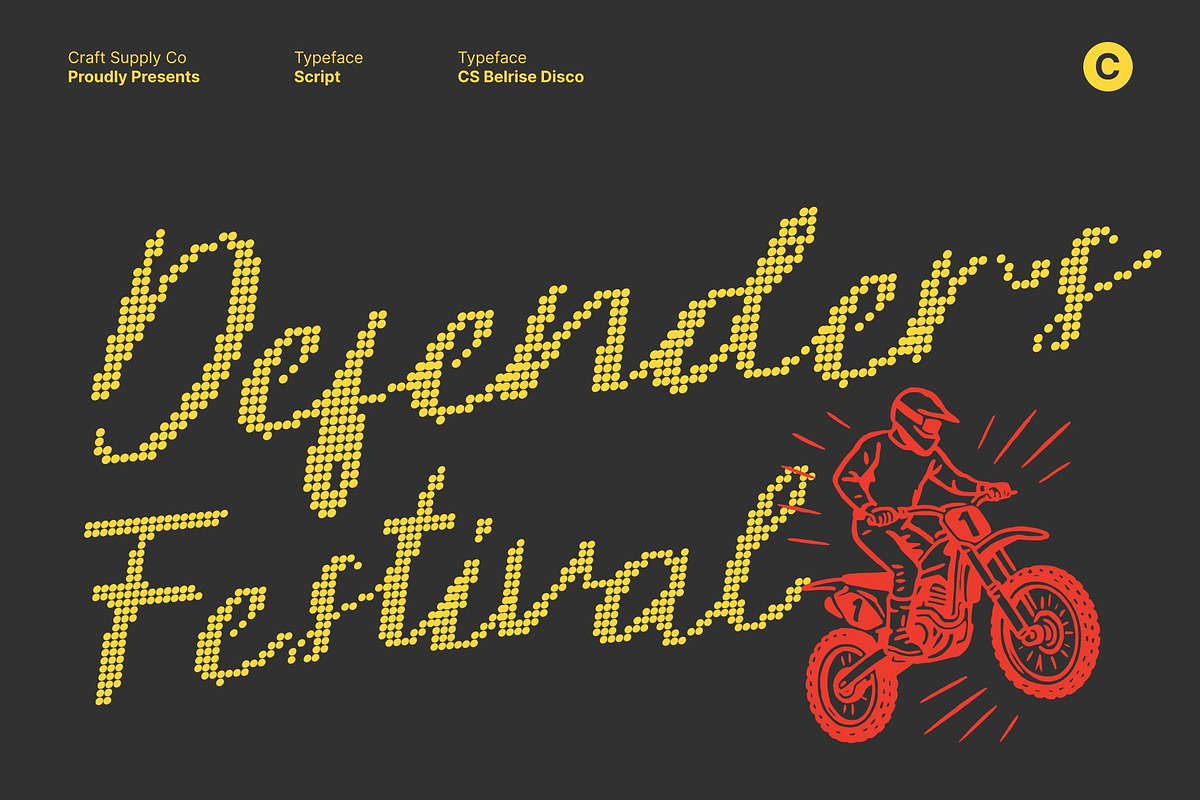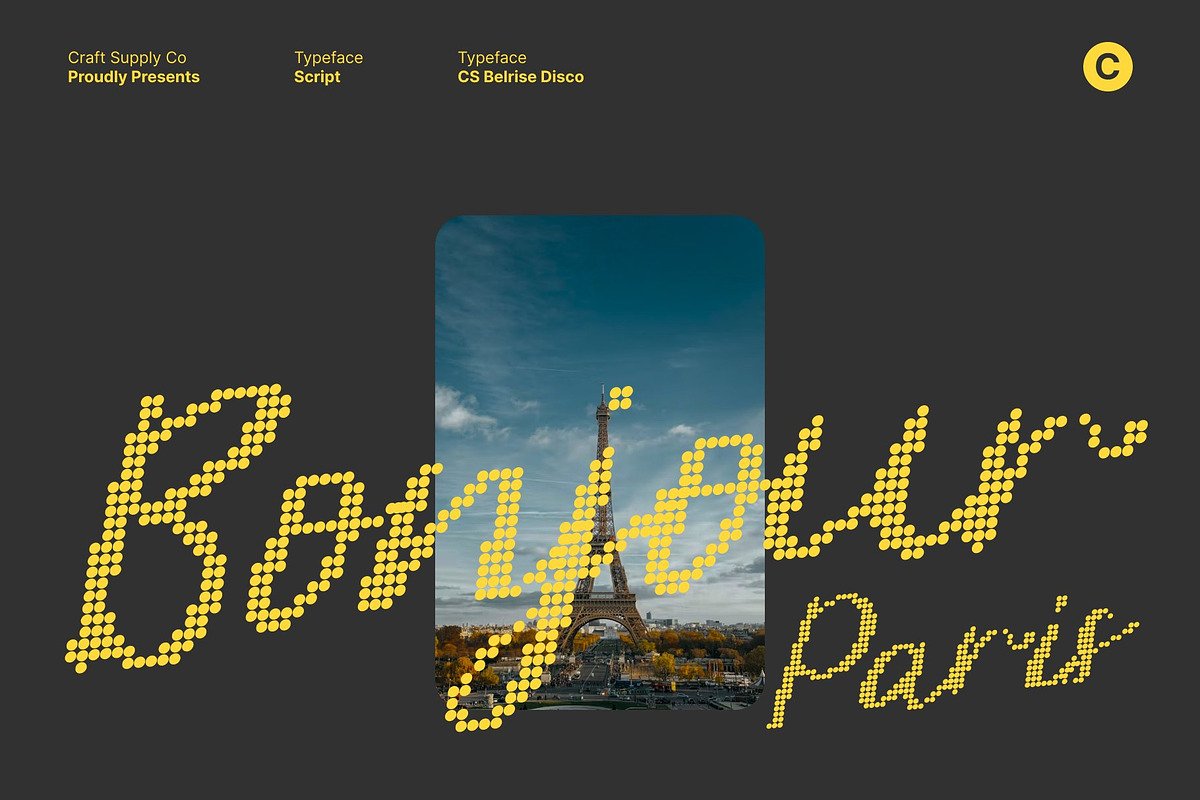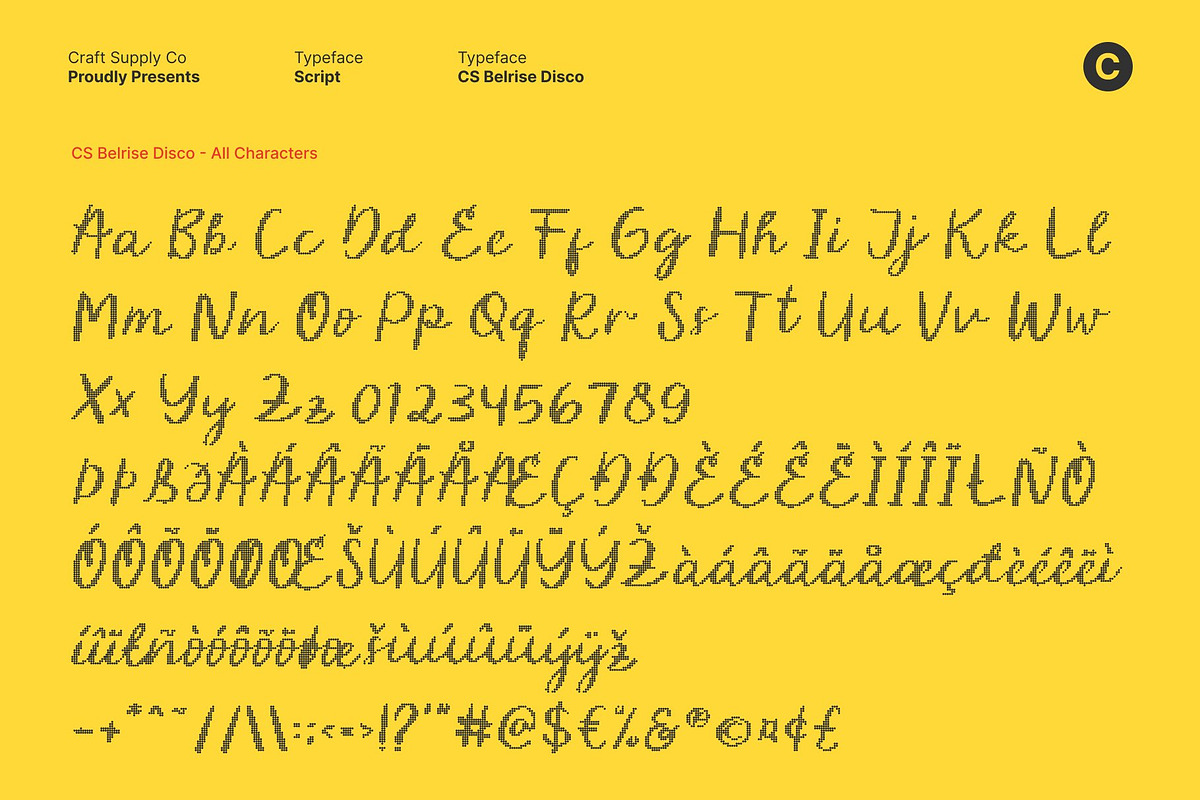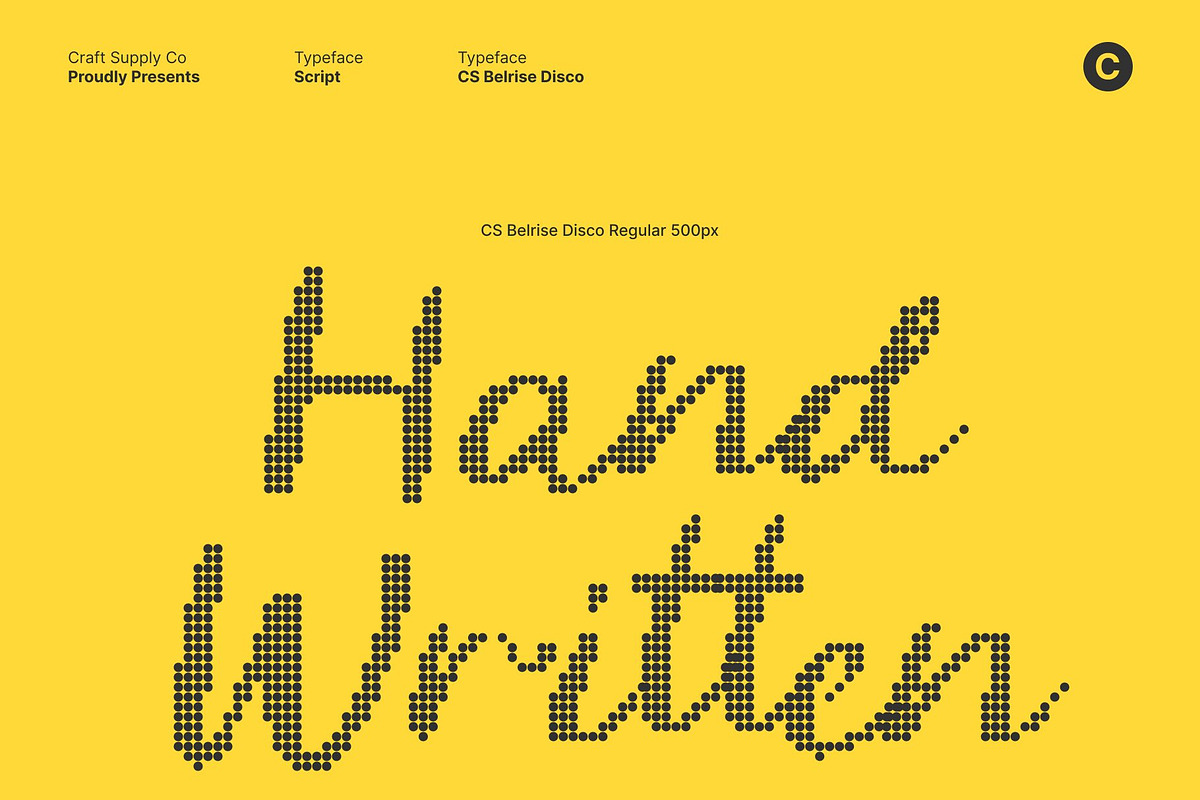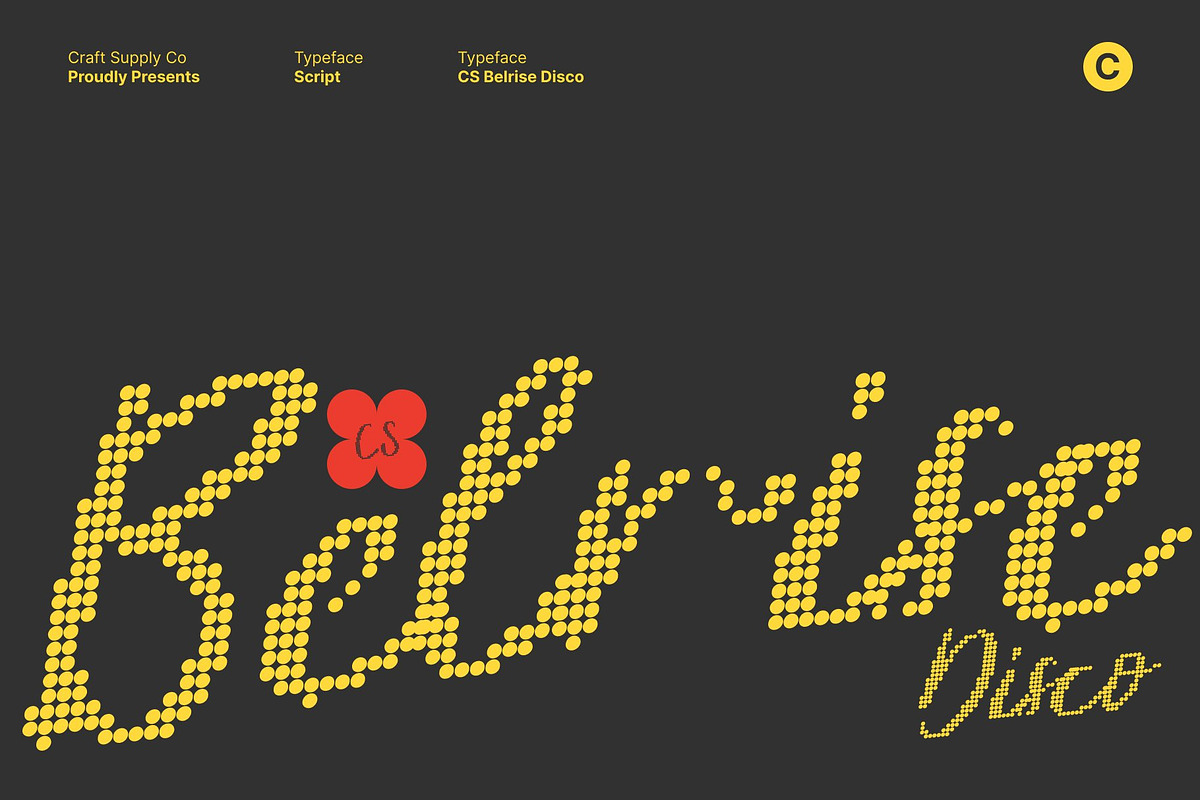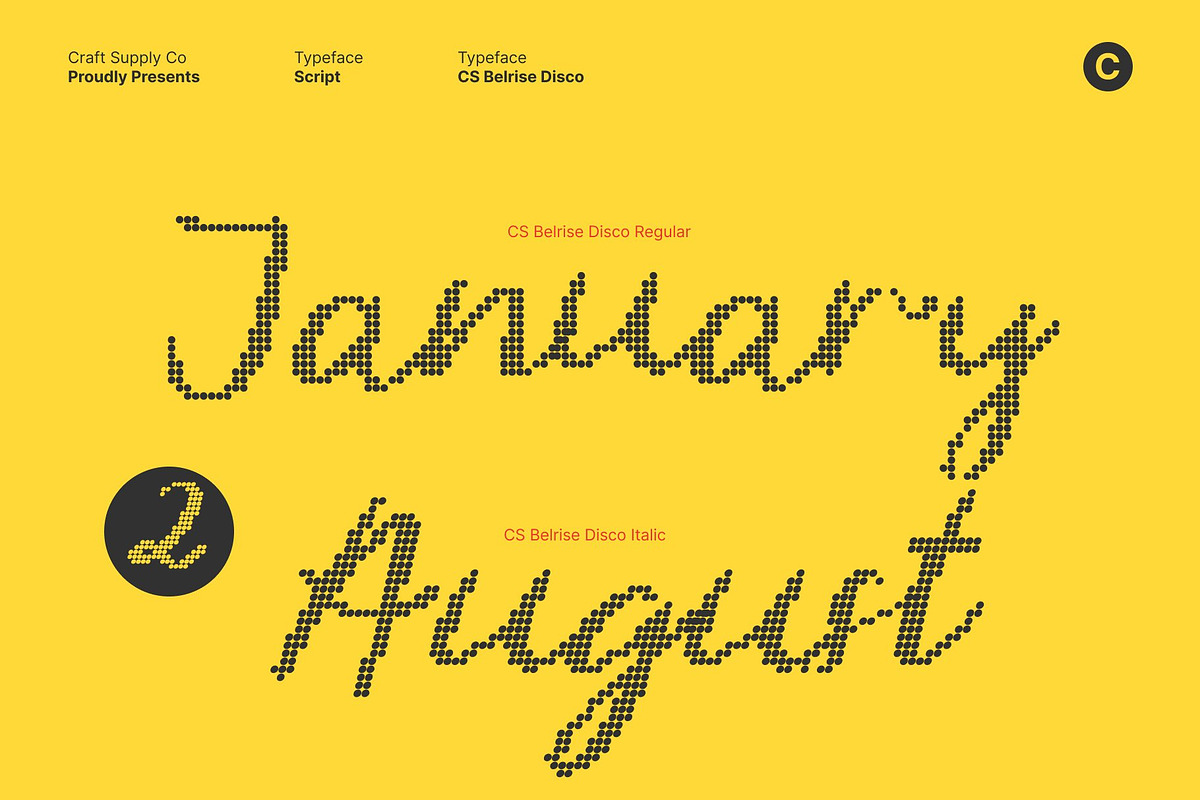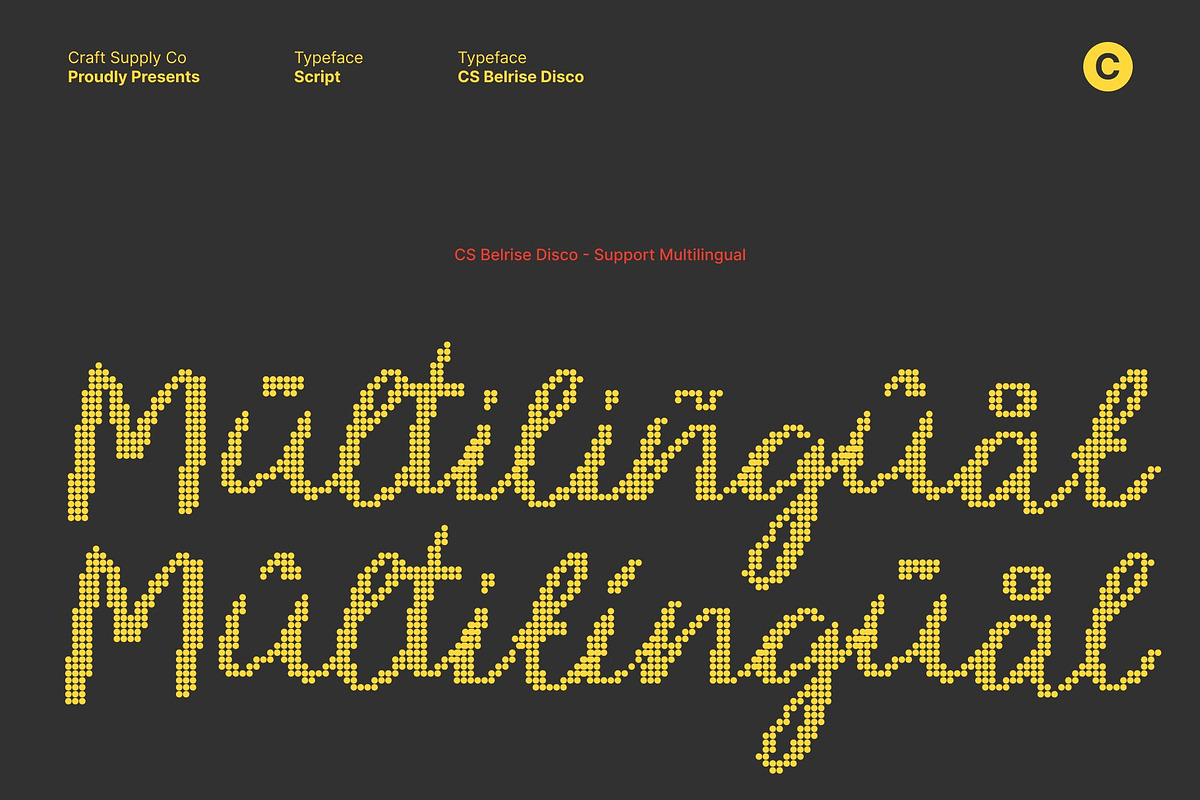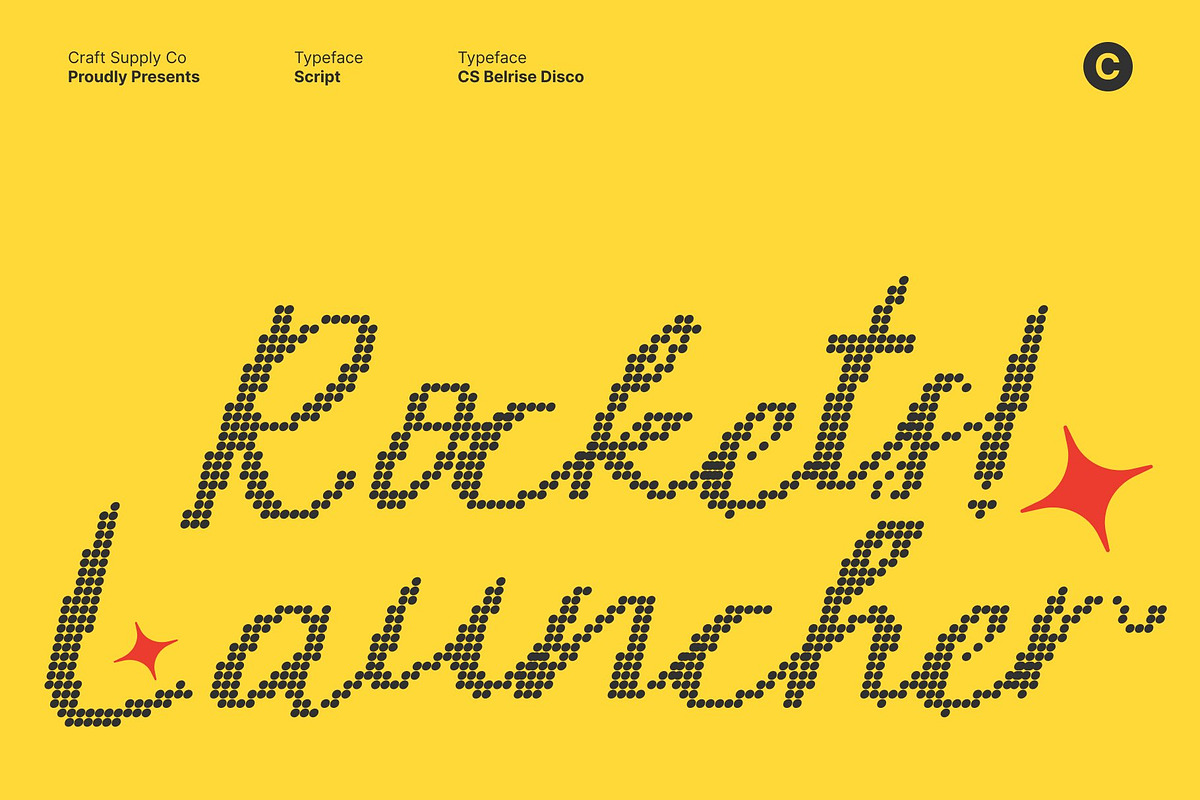
CS Belrise Disco
CS Belrise Disco – Beauty Handwriting Script with Mediterranean Disco Grace
Fluid Strokes with Stylish Handwritten Disco Beauty This is a beauty handwriting script font crafted with soft, fluid strokes and graceful movement. Each letter flows naturally with a gentle rhythm, capturing the warmth of handcrafted writing while embracing a light disco-inspired elegance. The result is a script that feels expressive, stylish, and effortlessly charming full of motion and personality.
Mediterranean Elegance with Retro Disco Romance Inspired by the sunlit charm of Mediterranean handwriting and the romantic glamour of the 70s to early 80s, this font carries an airy, graceful character with a nostalgic glow. Its flowing curves and relaxed movement evoke seaside romance, soft lights, and joyful evenings, creating a look that feels timeless, cheerful, and beautifully refined.
Perfect for Branding and Elegant Packaging This font shines in branding projects that seek a luxurious yet approachable feel. Its elegant handwritten strokes add sophistication and warmth to logos, product labels, and premium packaging. Ideal for beauty, fashion, artisan goods, and lifestyle brands, this font communicates authenticity, elegance, and subtle retro charm.
Ideal for Weddings and Romantic Creative Designs With its smooth flow and gentle disco-era warmth, this font is perfect for wedding invitations, event stationery, greeting cards, and romantic visuals. Its delicate rhythm enhances emotional messages, giving every design a personal, intimate, and joyfully expressive touch.
CS Belrise Disco Regular
CS Belrise Disco Italic